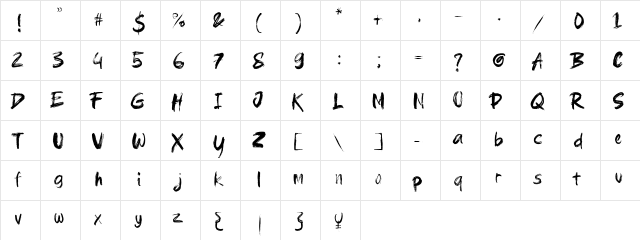
brushield Regular
| Foundry | Degi Kurniawan |
| Designer | Degi Kurniawan |
Design Context for brushield Typeface
brushield brings a calligraphic fluidity to the page — its connecting strokes and expressive curves give it an unmistakably human quality.